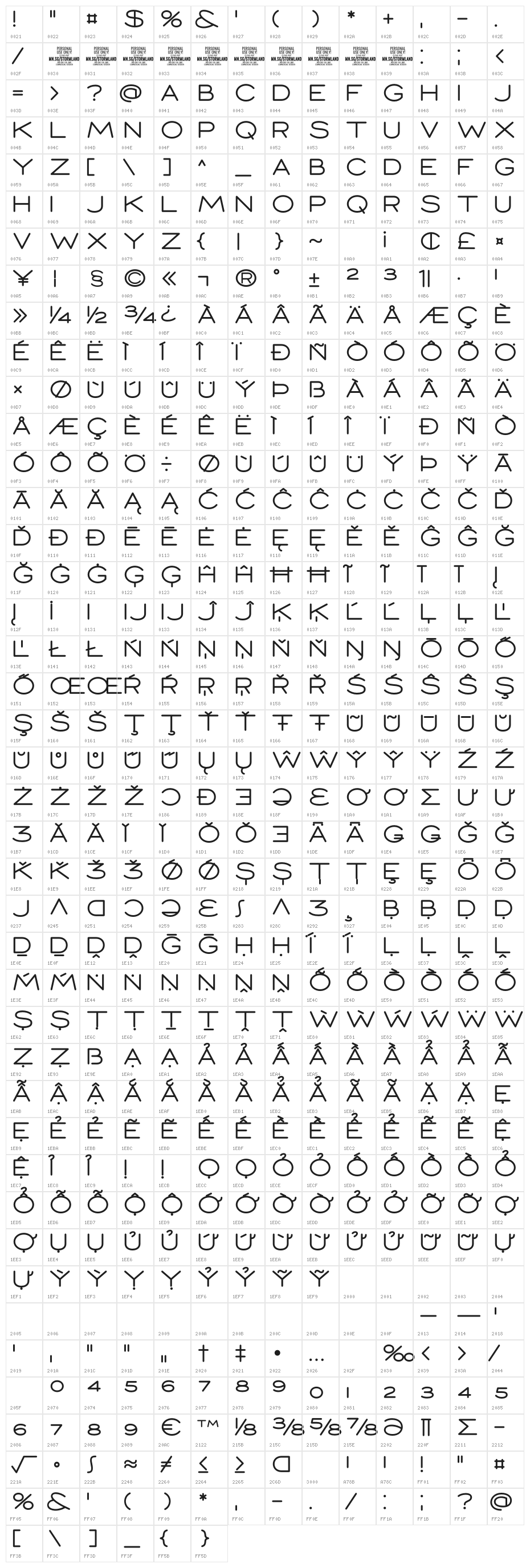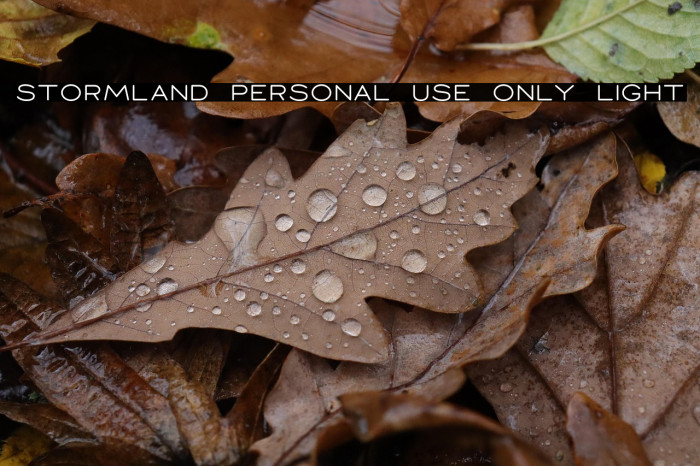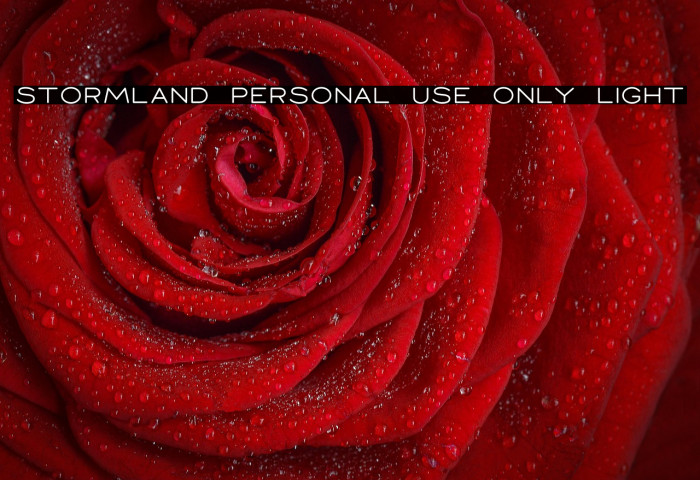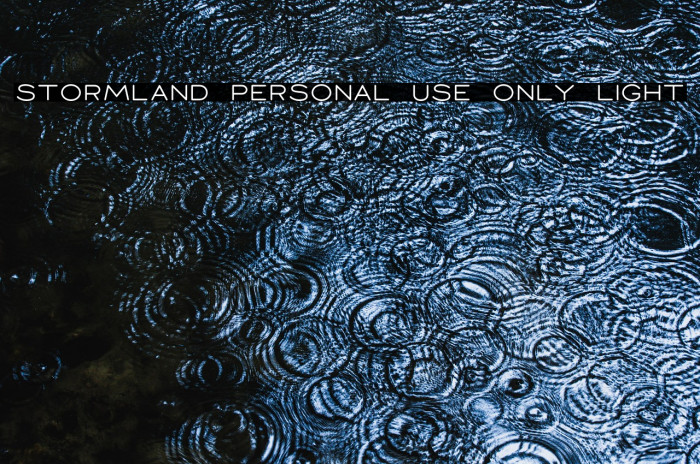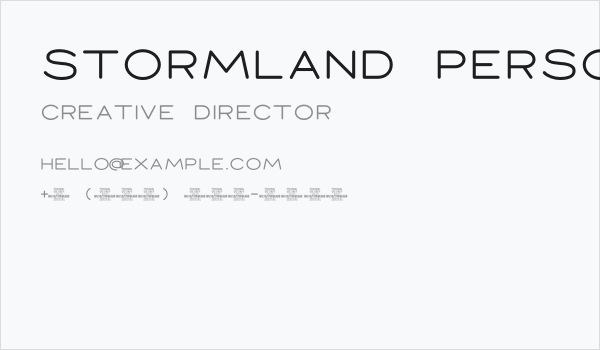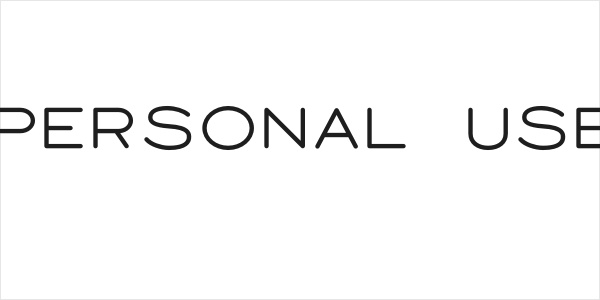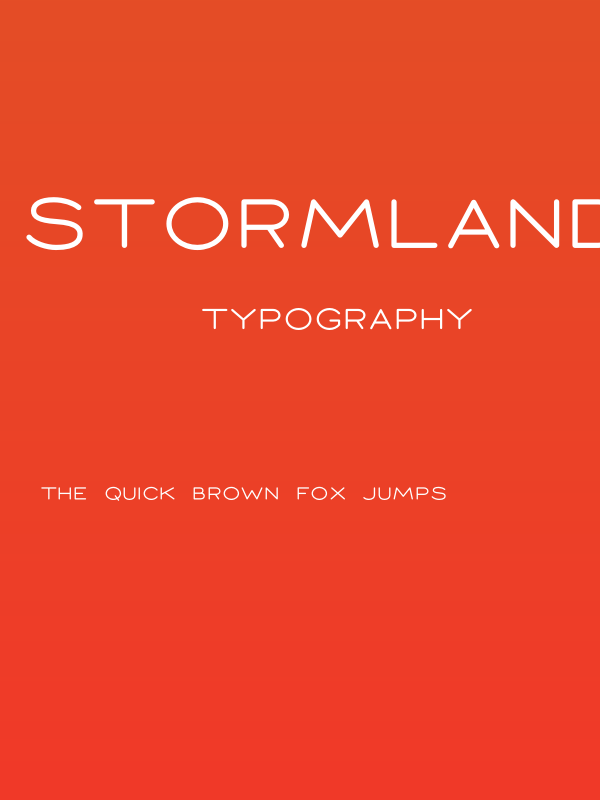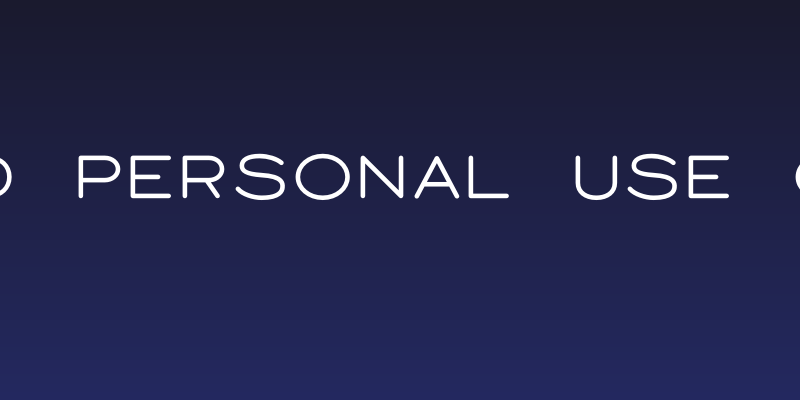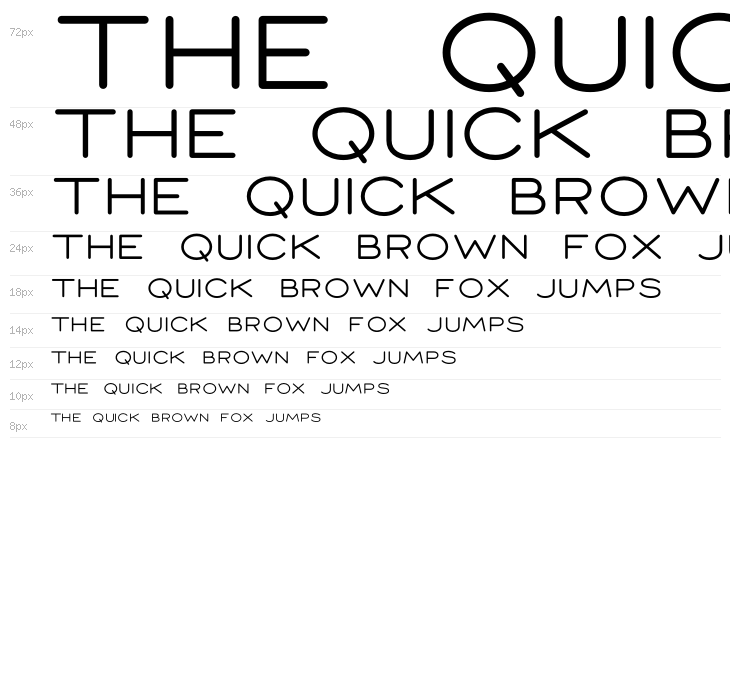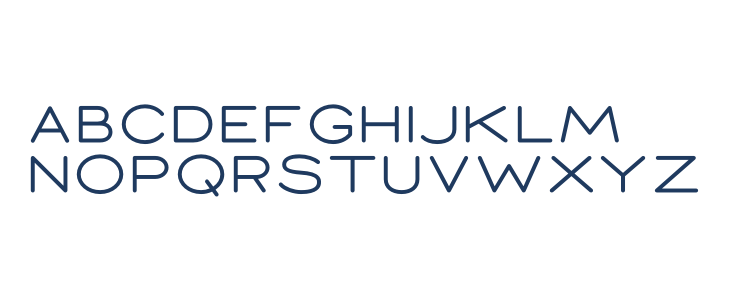
Stormland PERSONAL USE ONLY Light Font
Stormland PERSONAL USE ONLY Light Description
This font features a clean, modern aesthetic with a minimalist design. The characters are uniformly thin, offering a sleek and contemporary look. The uppercase and lowercase letters maintain a consistent style, with smooth curves and straight lines that create a harmonious balance. The numerals and special characters are designed to complement the alphabet, maintaining the same thin stroke and modern feel. This font is ideal for projects that require a sophisticated and understated elegance.